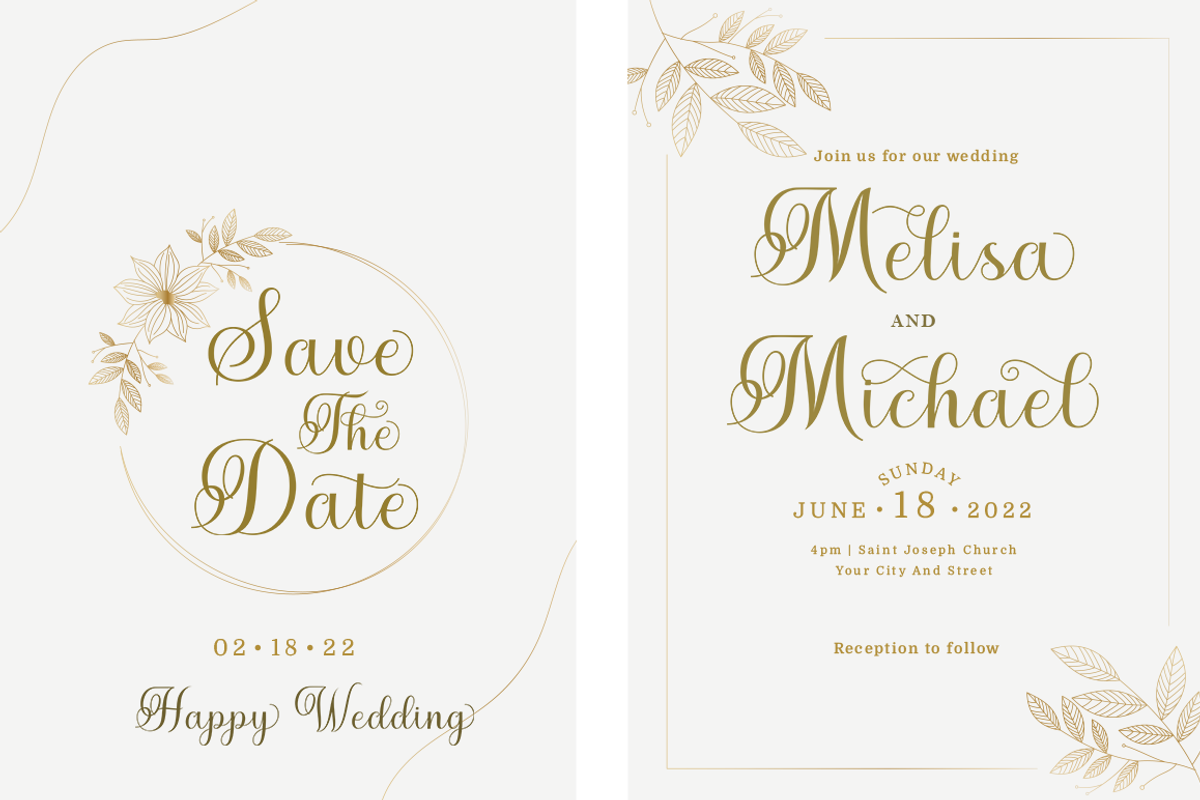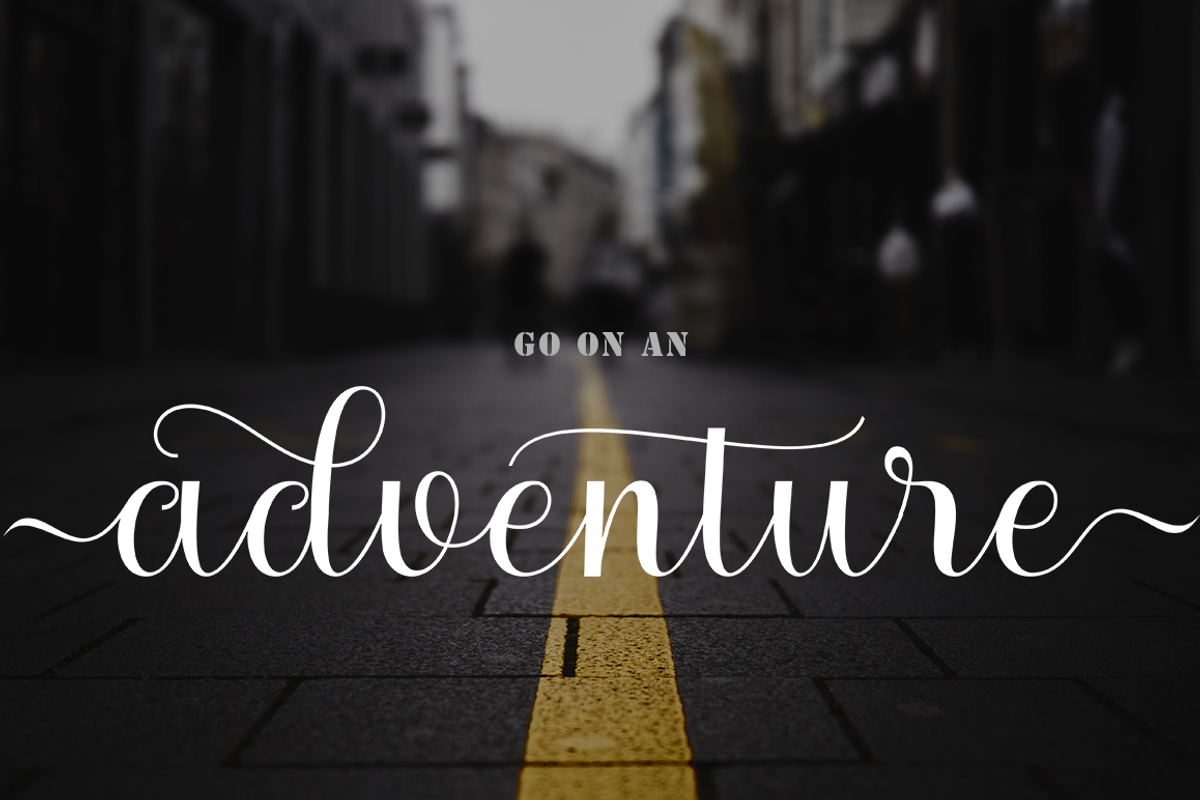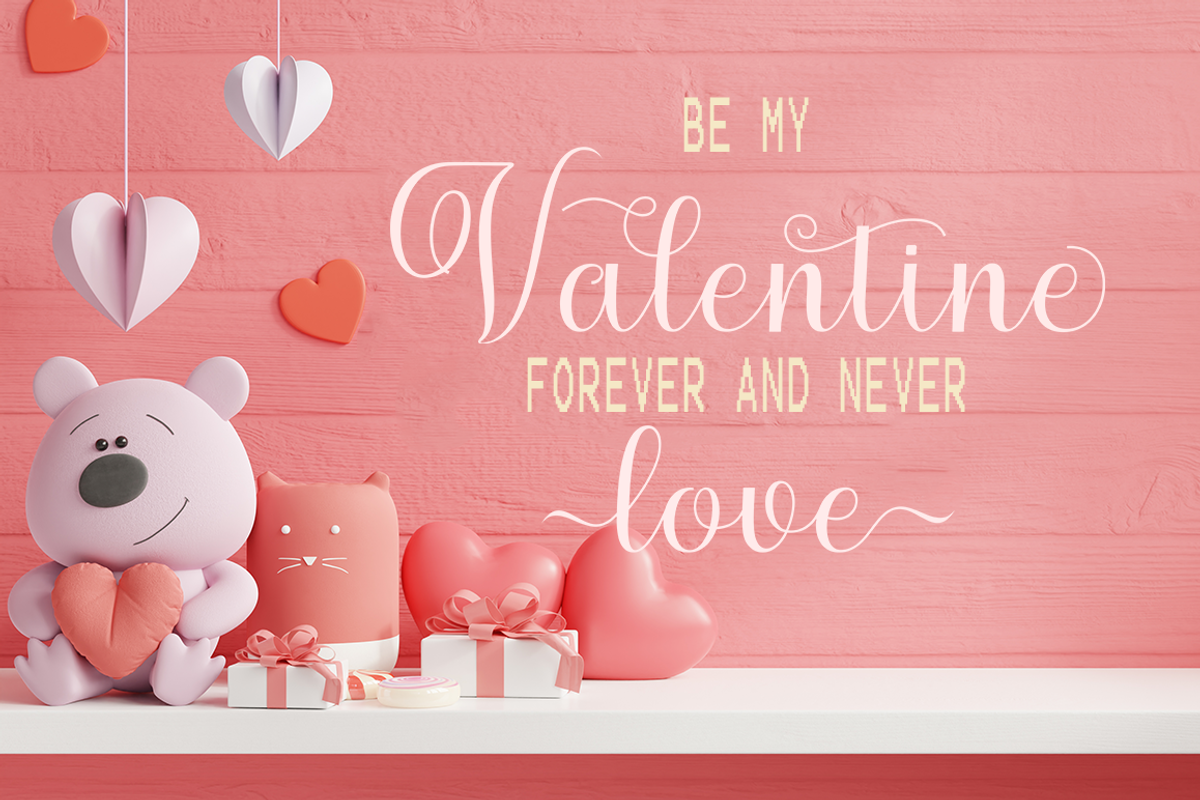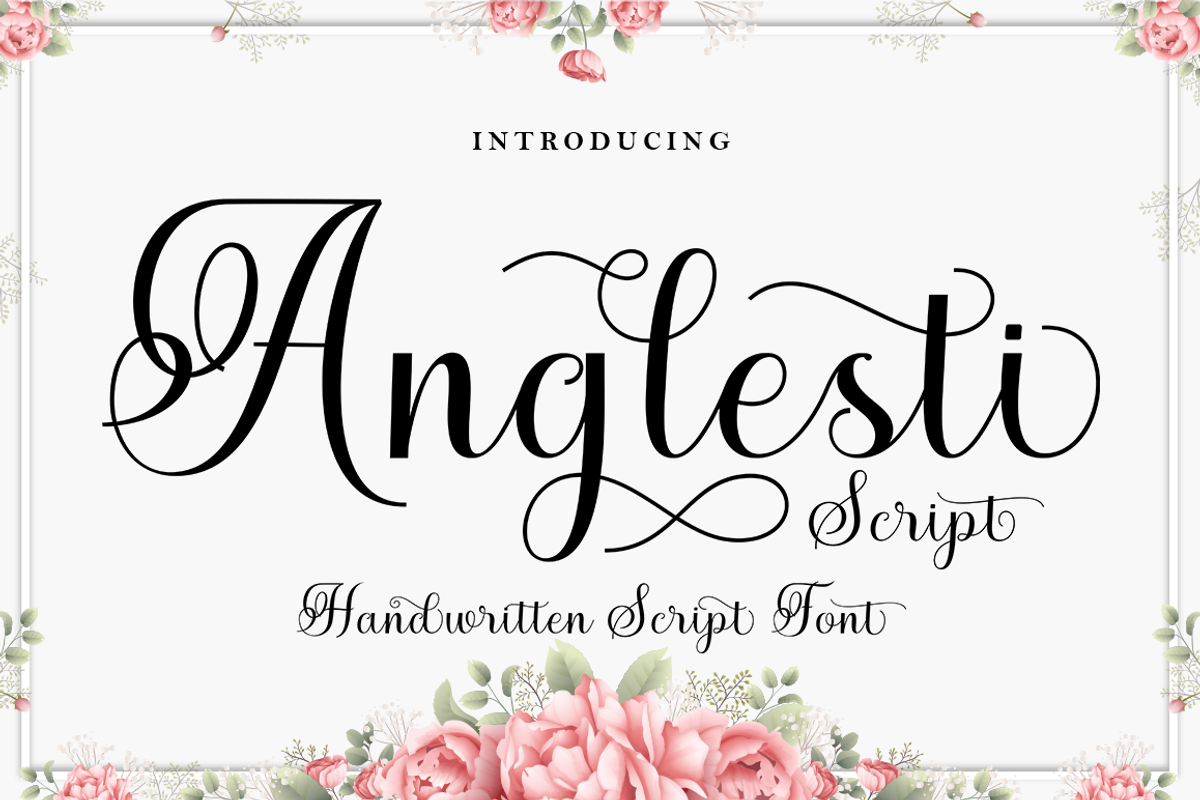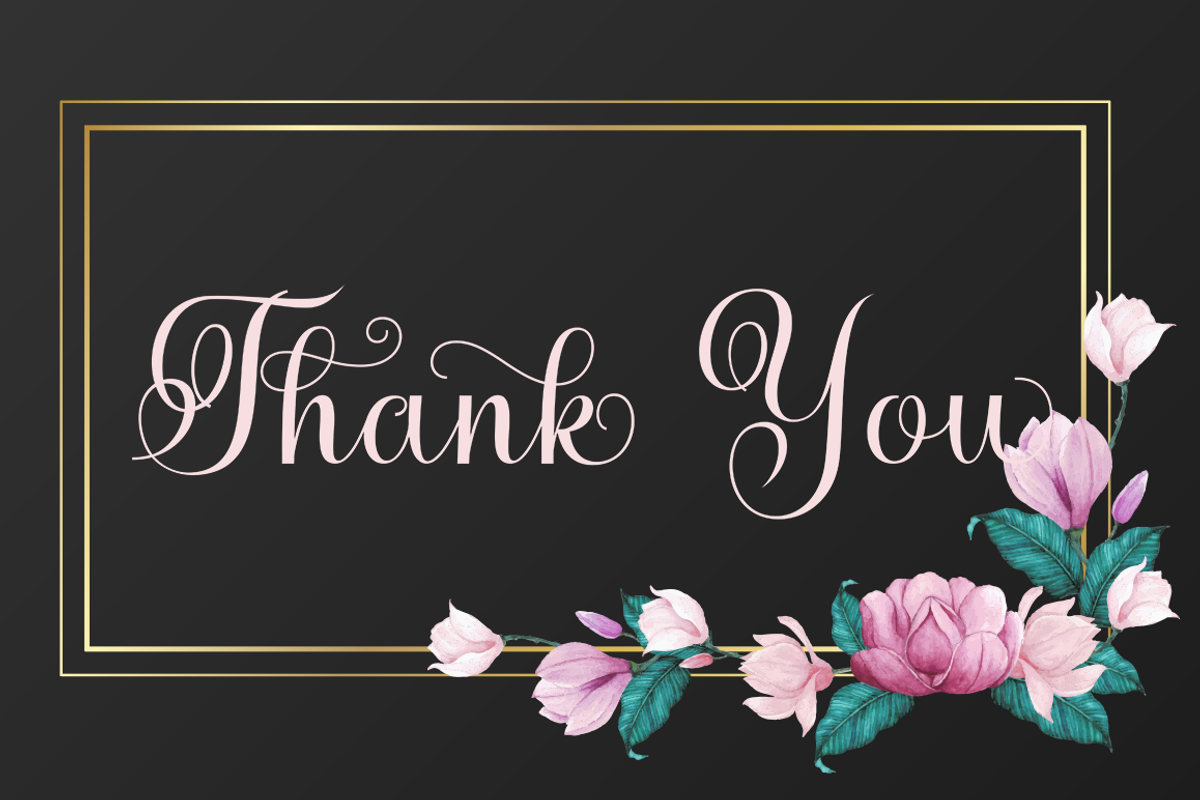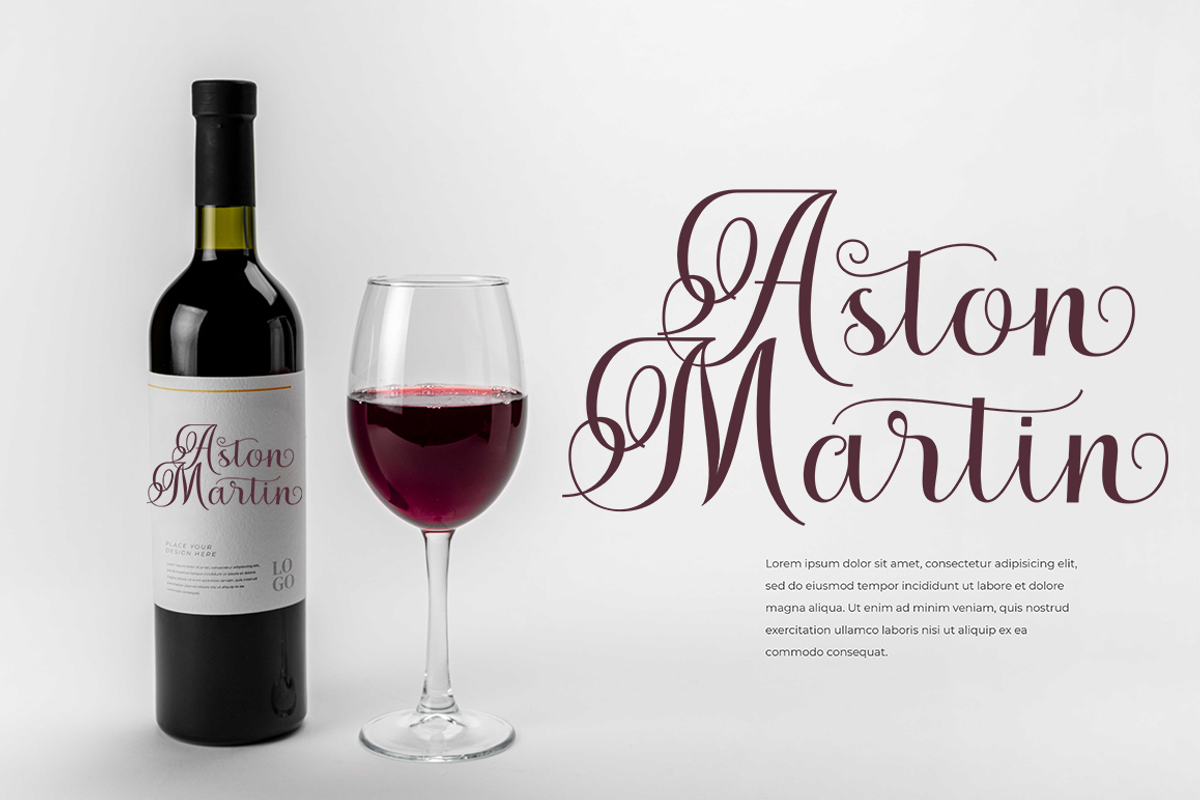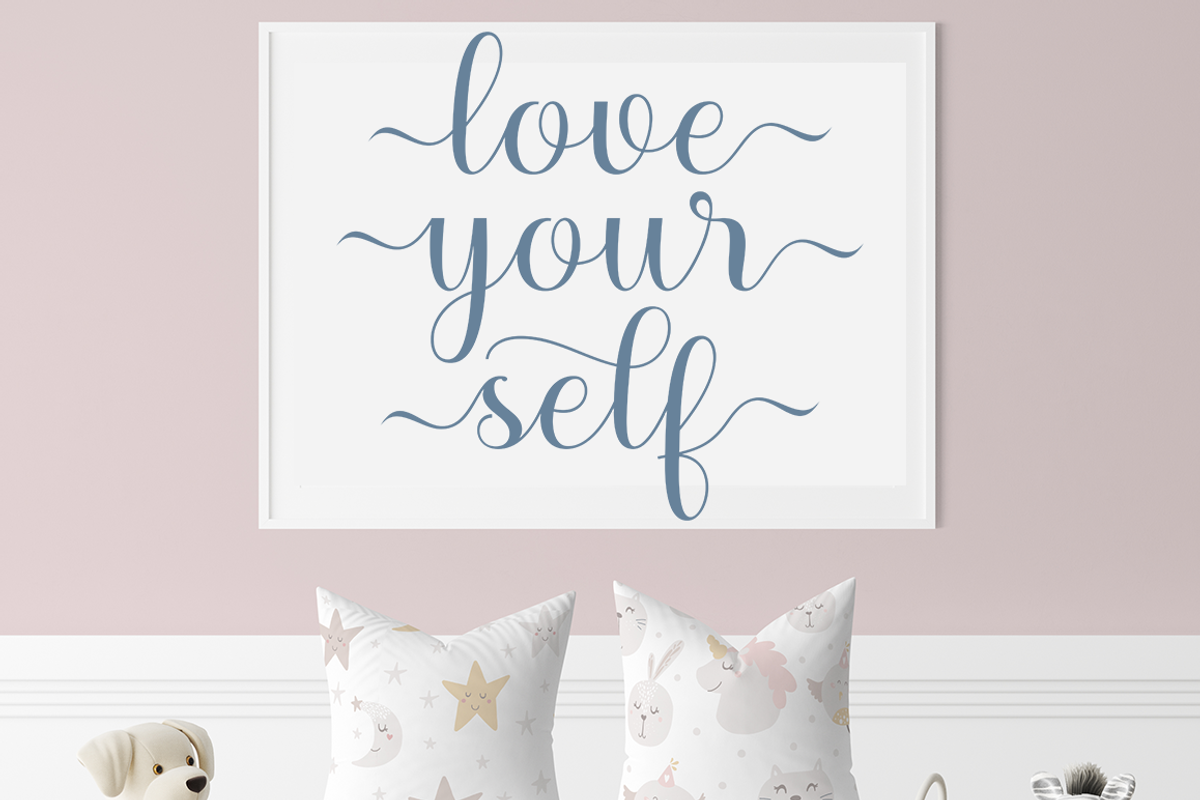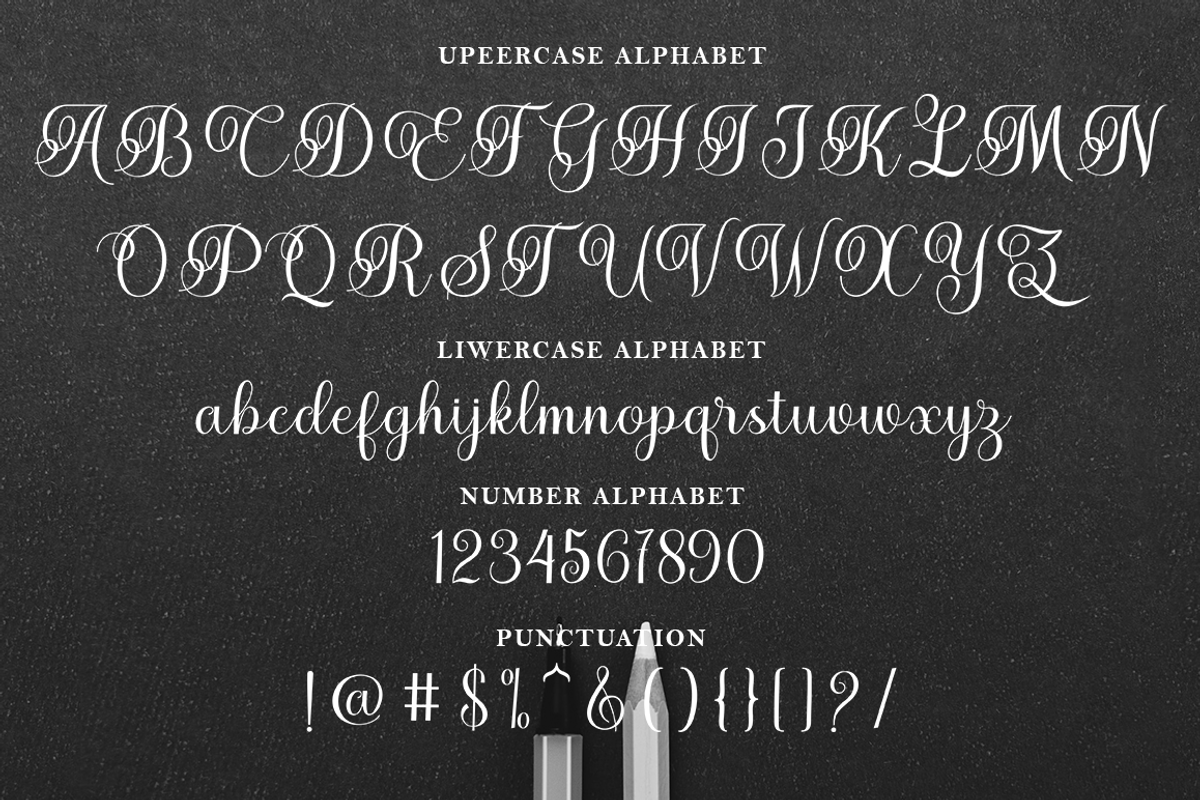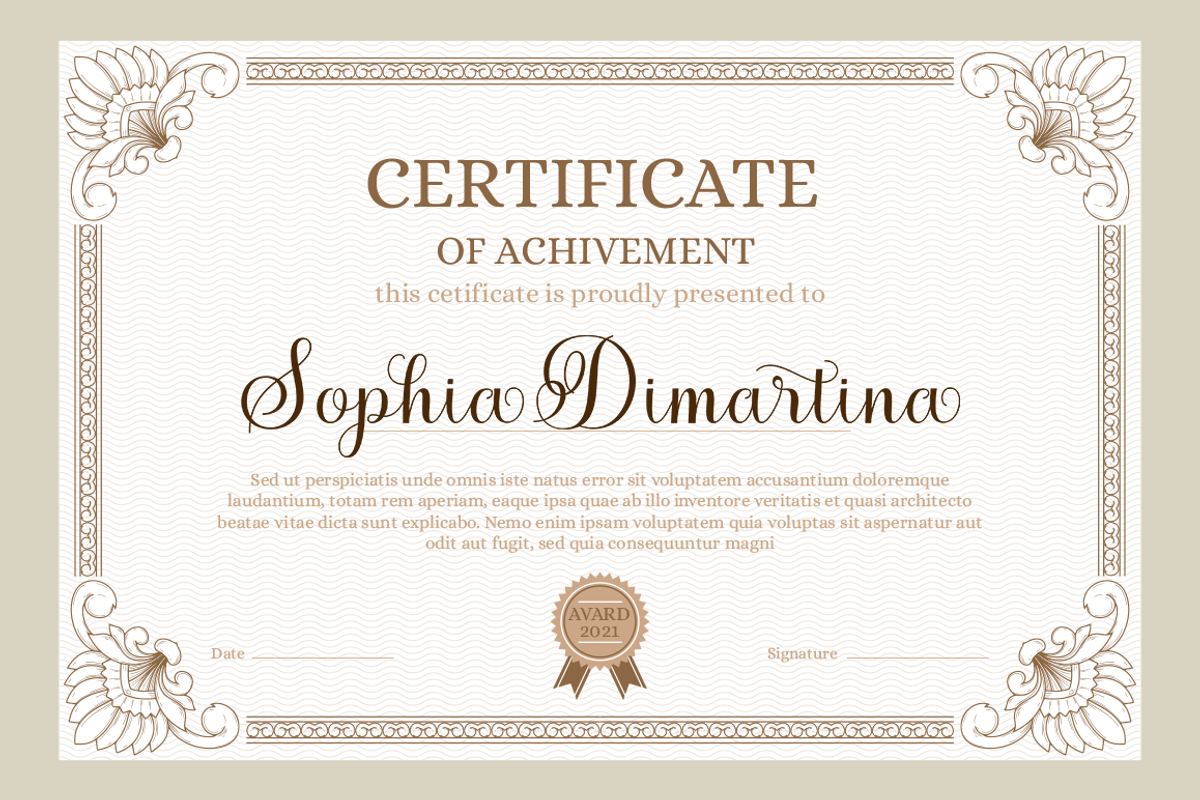
Anglesti Script
Anglesti Script a new fresh & modern script with a handmade calligraphy style, decorative characters and a dancing baseline! So beautiful on invitation like greeting cards, branding materials, business cards, quotes, posters, and more!!
Anglesti Script come with 451 glyphs. The alternative characters were divided into several Open Type features such as Swash, Stylistic Sets, Stylistic Alternates, Contextual Alternates, and Ligature. The Open Type features can be accessed by using Open Type savvy programs such as Adobe Illustrator, Adobe InDesign, Adobe Photoshop Corel Draw X version, And Microsoft Word. And this Font has given PUA unicode (specially coded fonts). so that all the alternate characters can easily be accessed in full by a craftsman or designer.
Anglesti Script Features :
International Languange & Symbols Support
Punctuation & Number
PUA Unicode Range
Standard Ligatures
Discretionary Ligatures
Character Variant
Contextual Swash